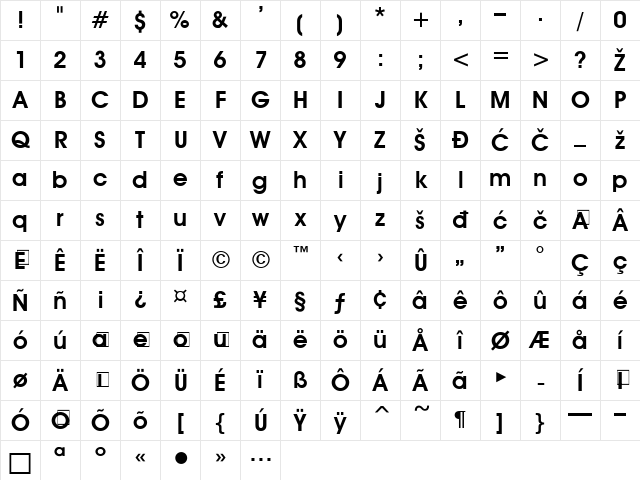
0Aval-B Regular
Design Context for 0Aval-B
0Aval-B is a composed and adaptable typeface that performs quietly and consistently across a wide range of design contexts.